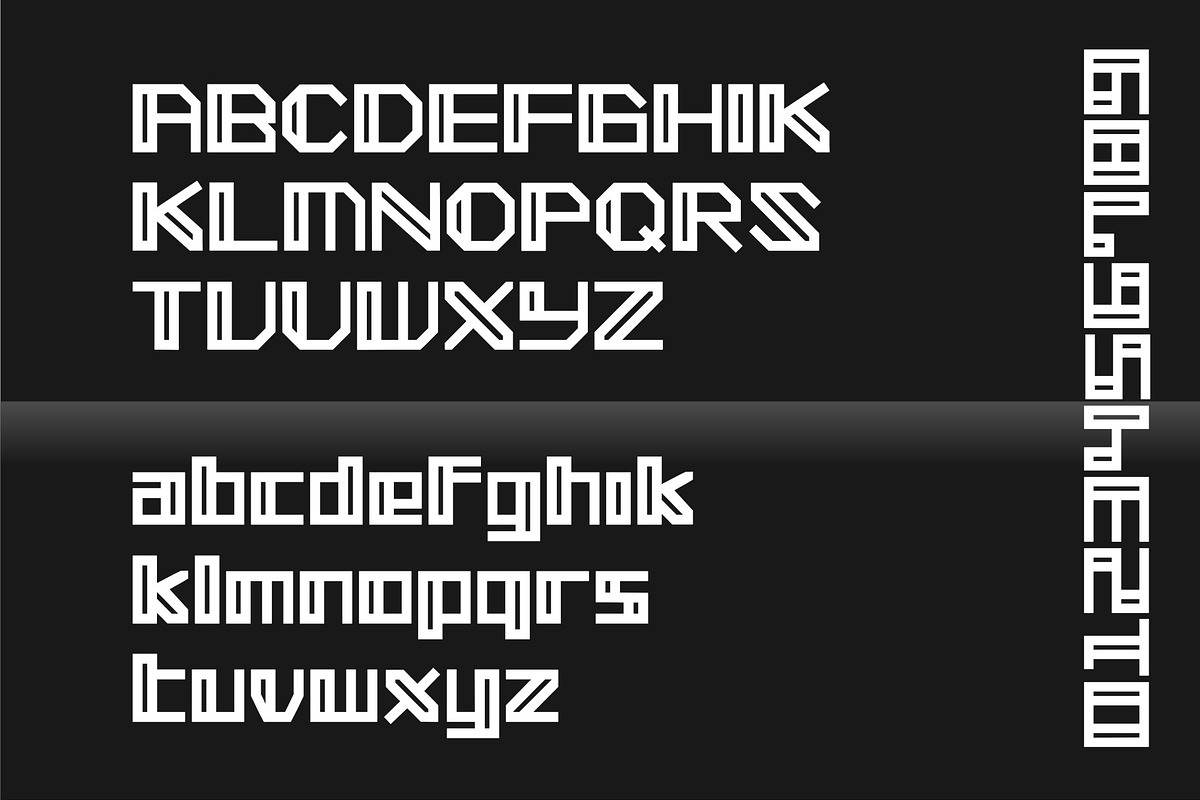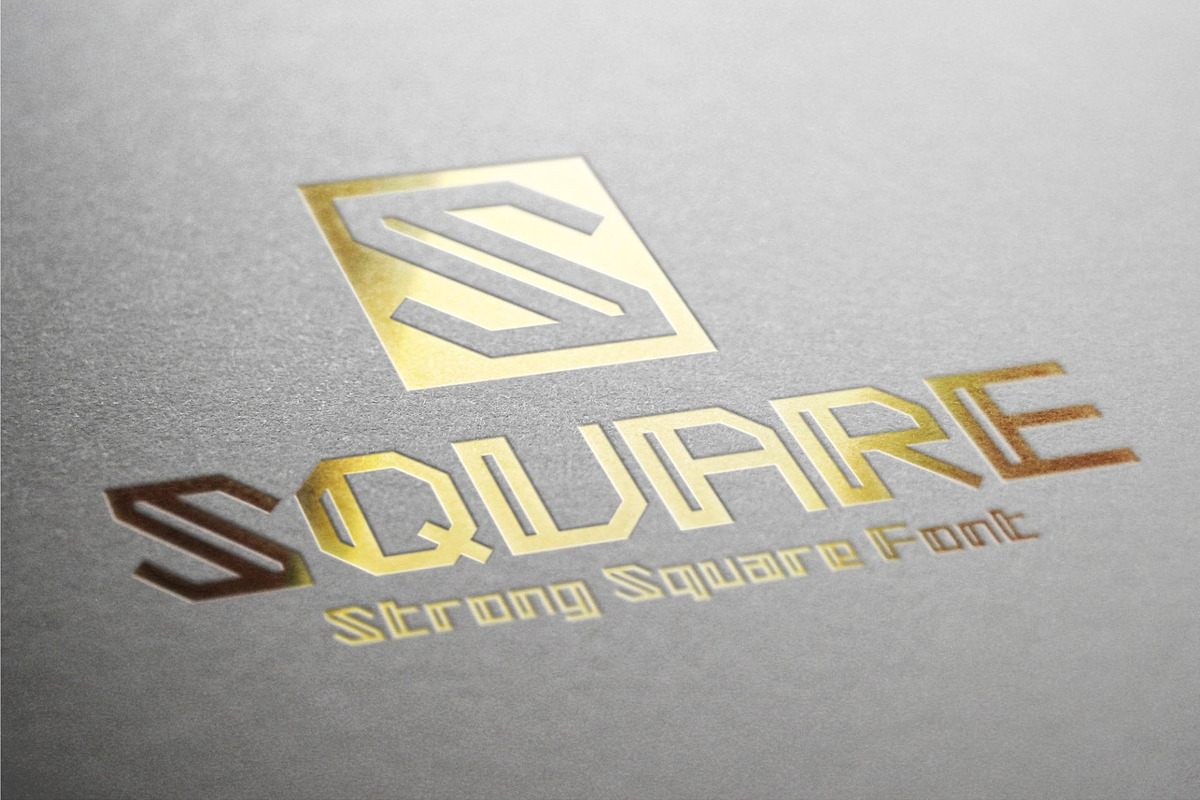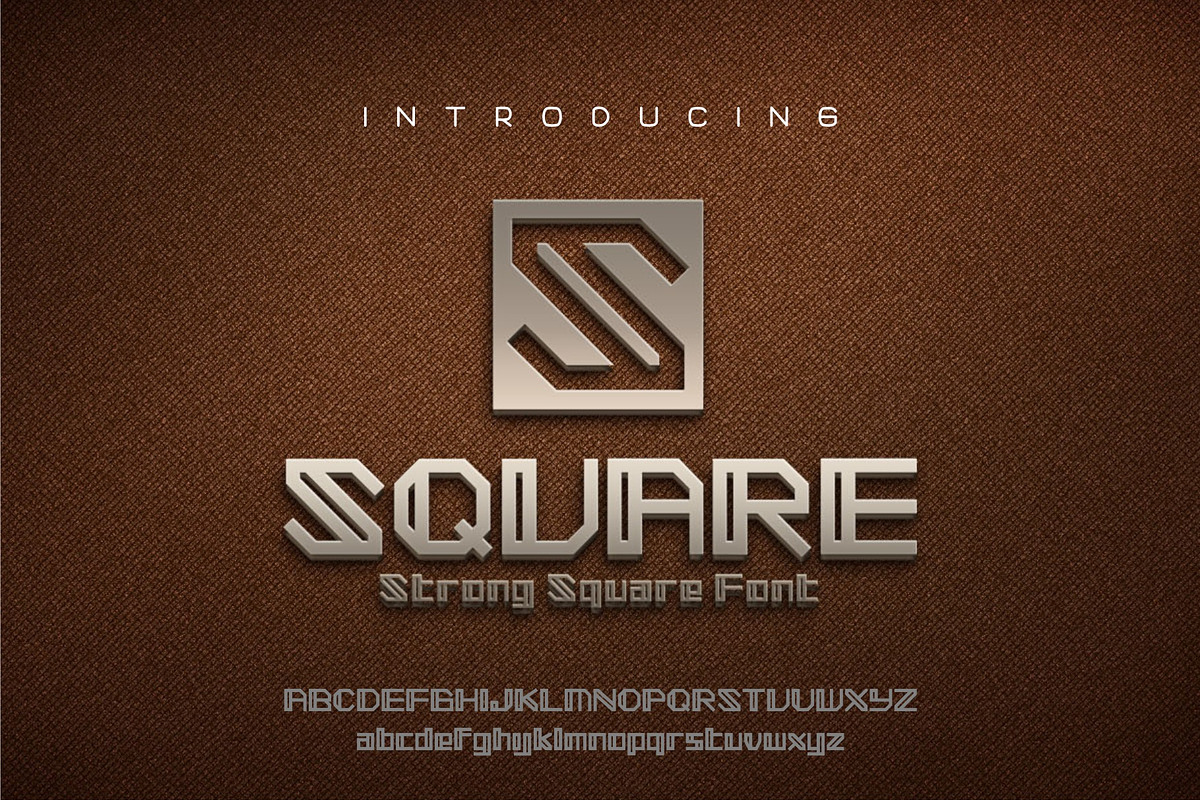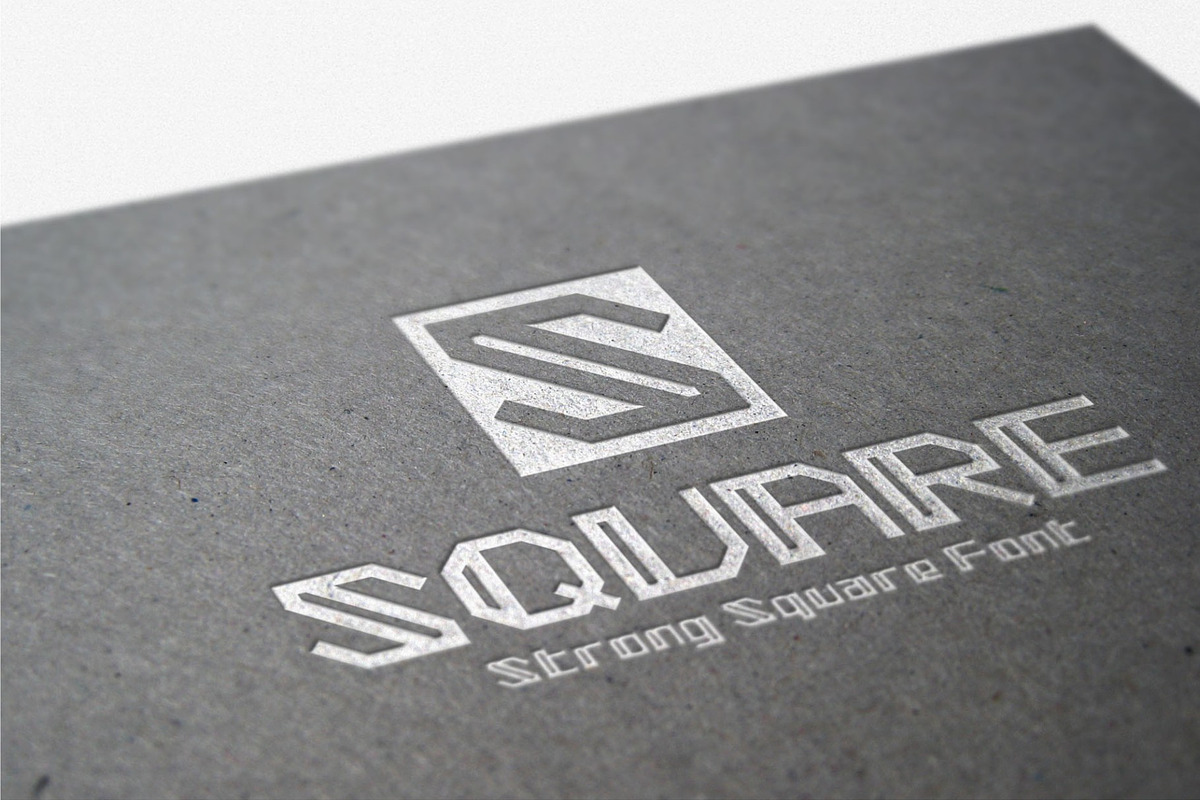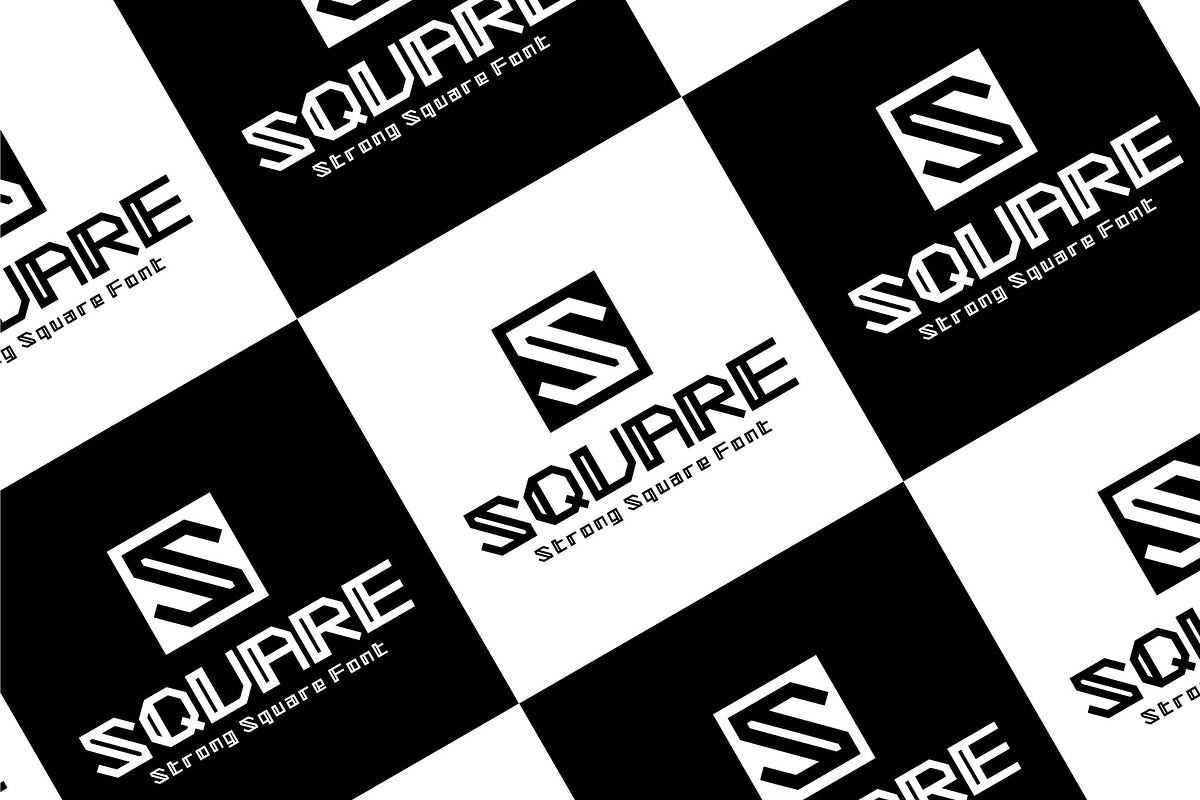
SQUARE - Strong Square font
The Square font sans serif. Simple and strong square line, it's sturdy uncompromising style is felt through the controlled letterforms and modern touches. A balance of hard lines and smooth curves.
SQUARE - Strong Square font by herulogo fits naturally into Branding, posters, packaging, typography.